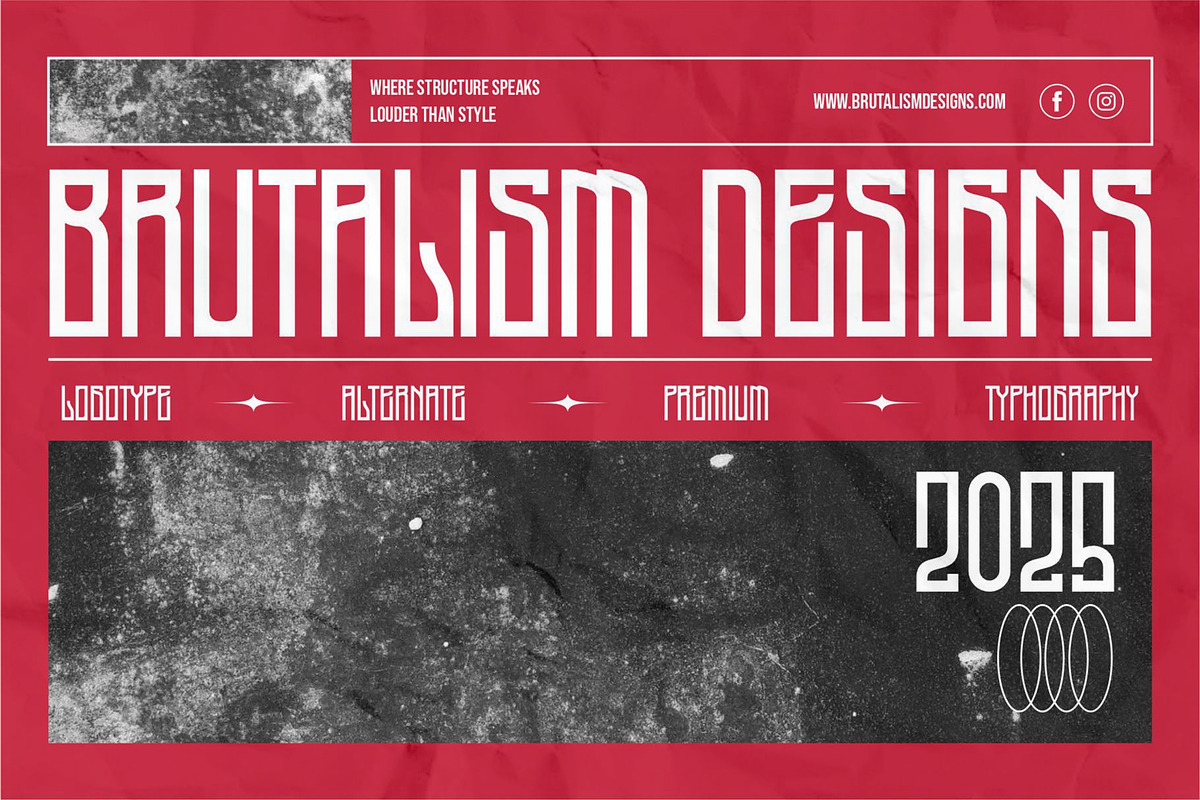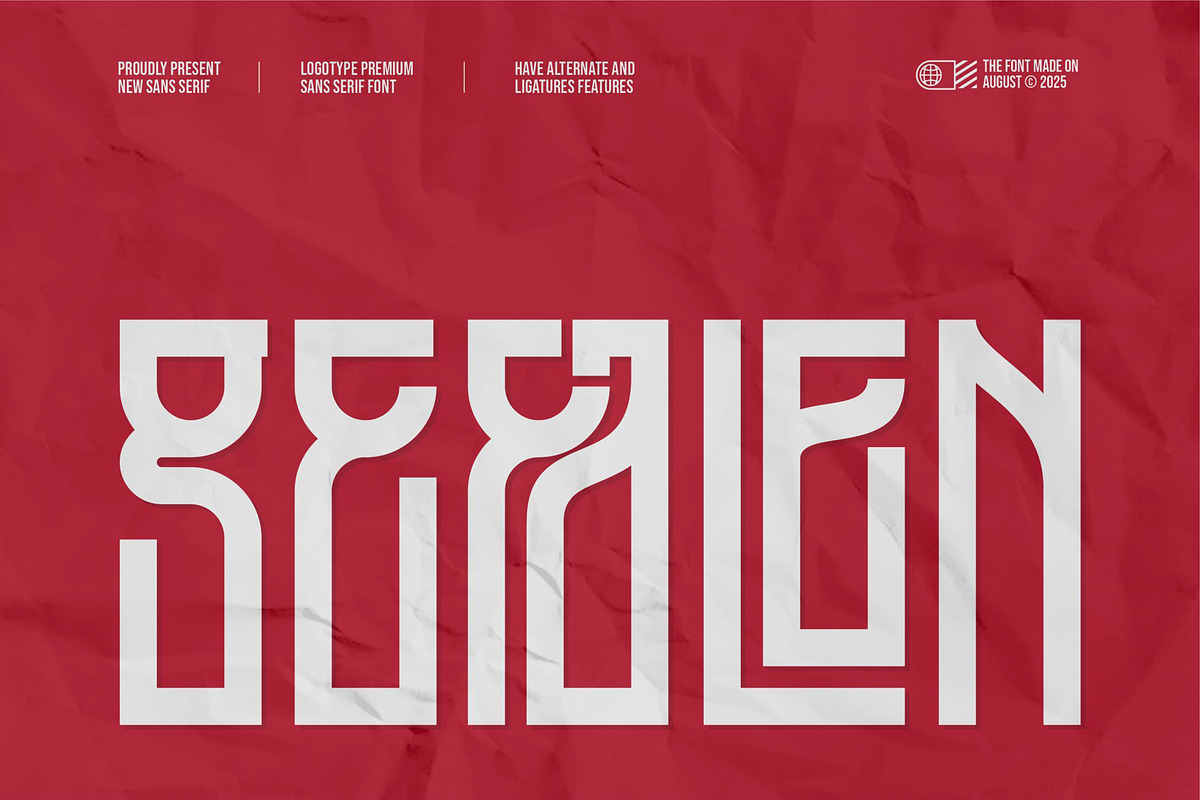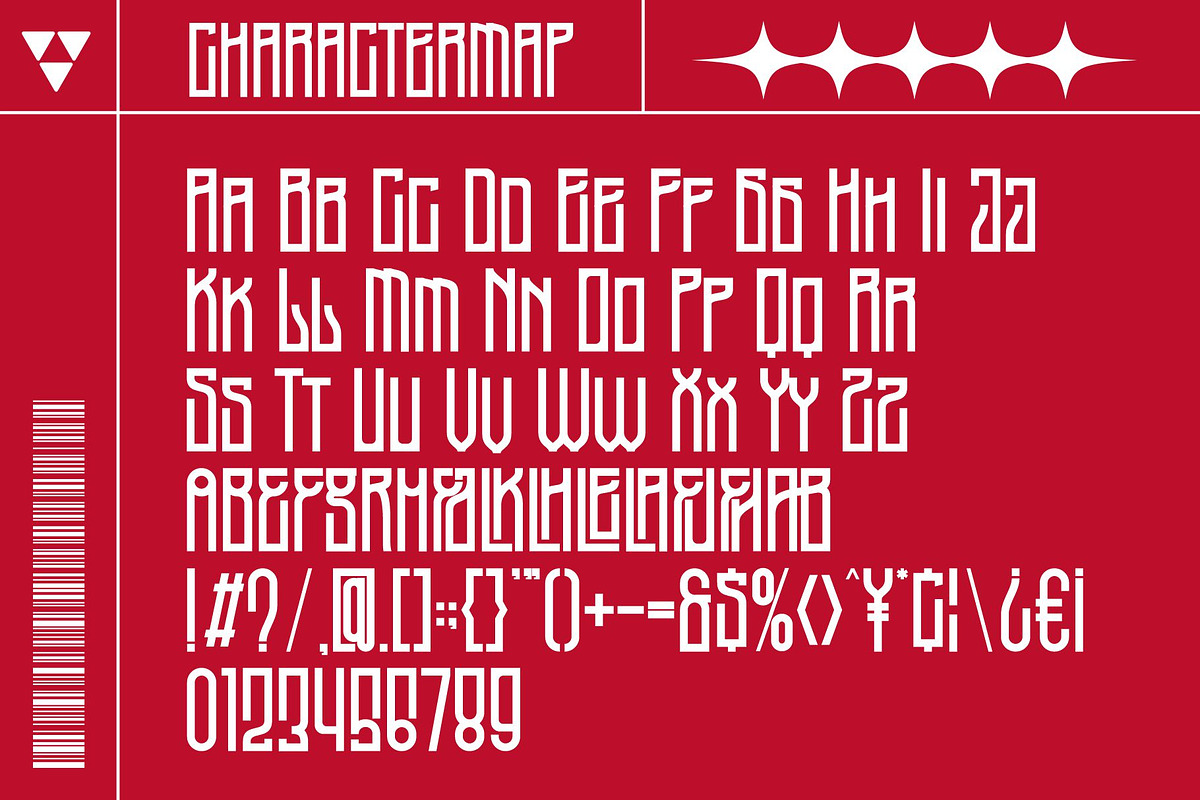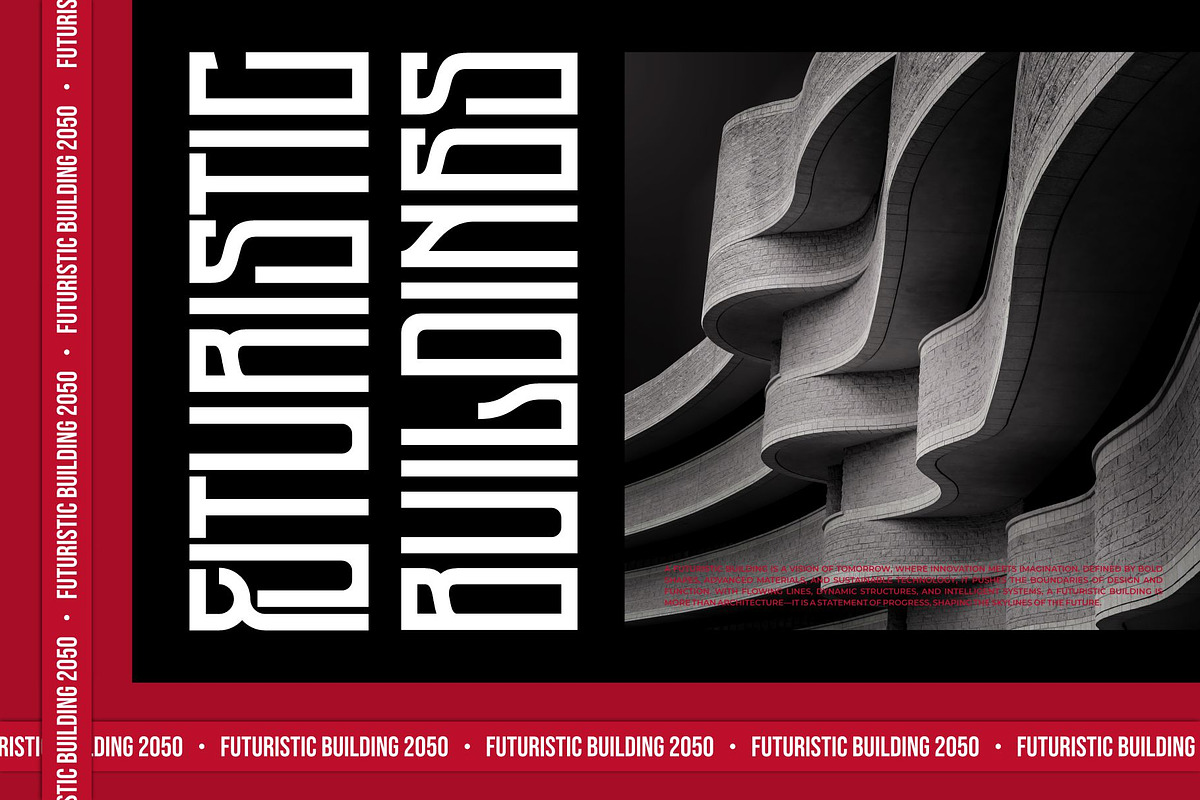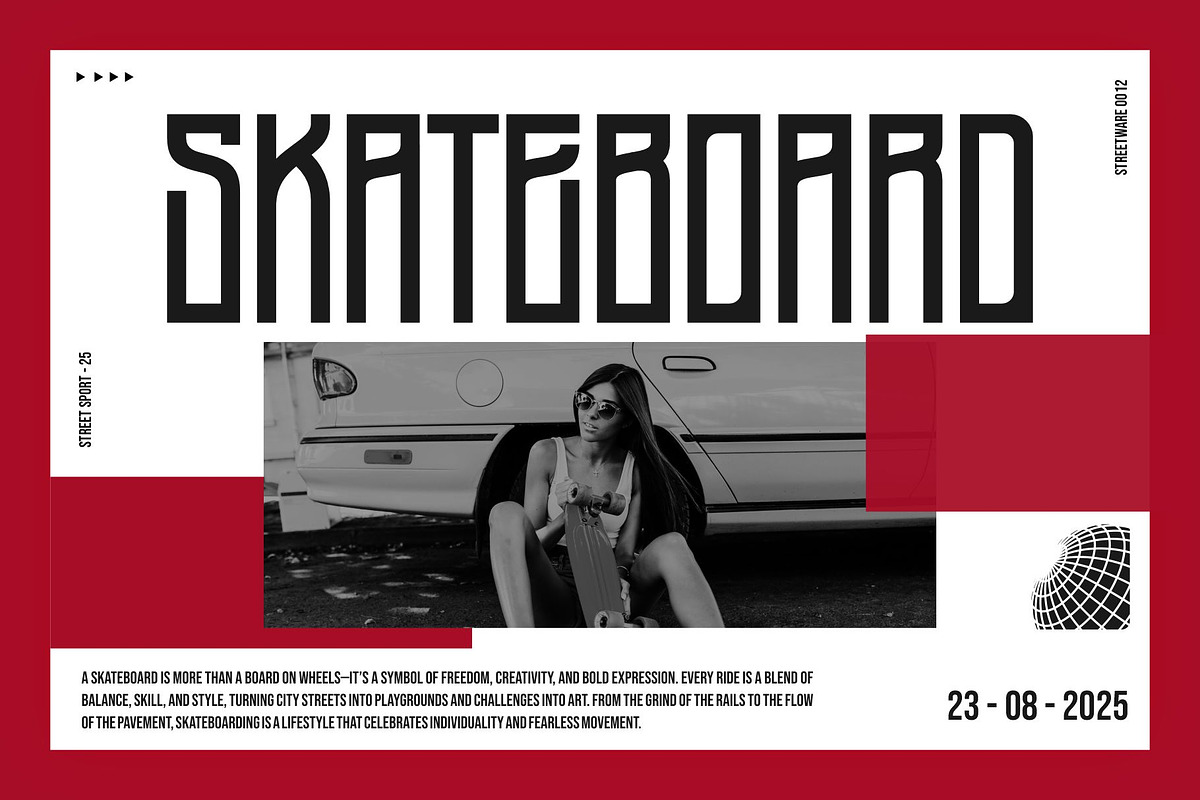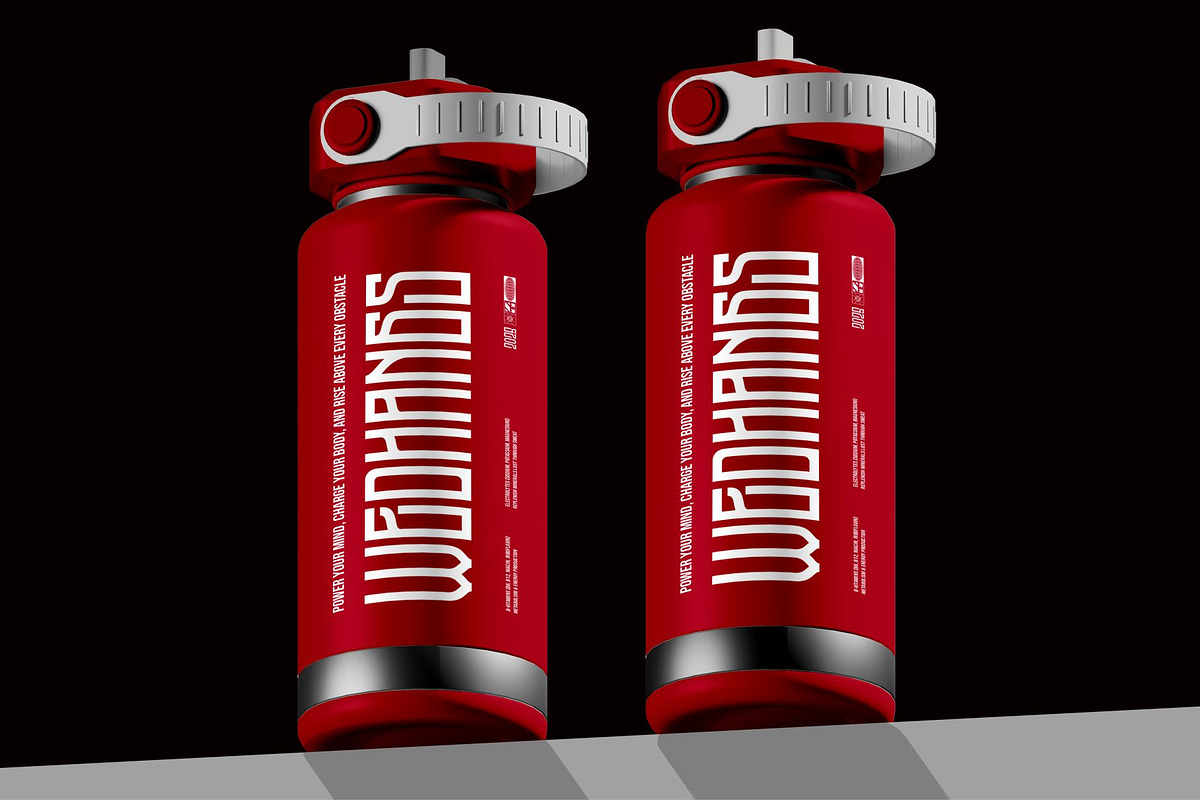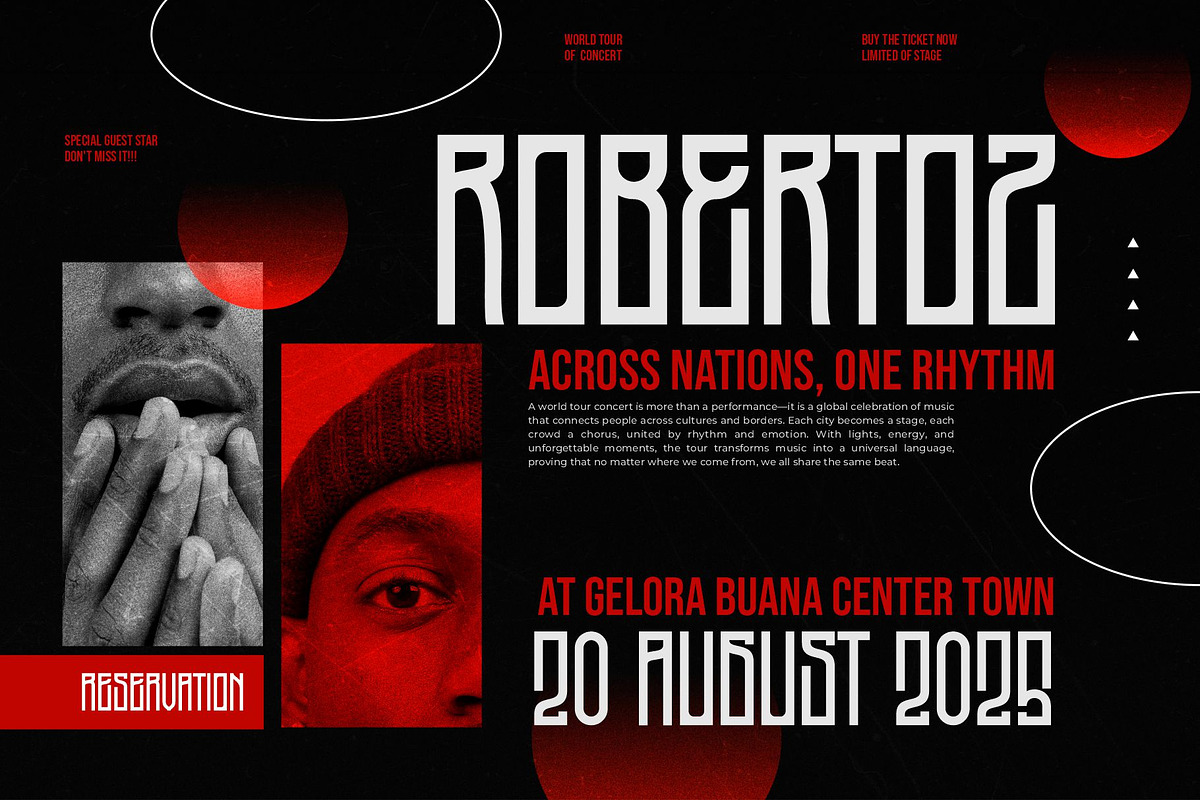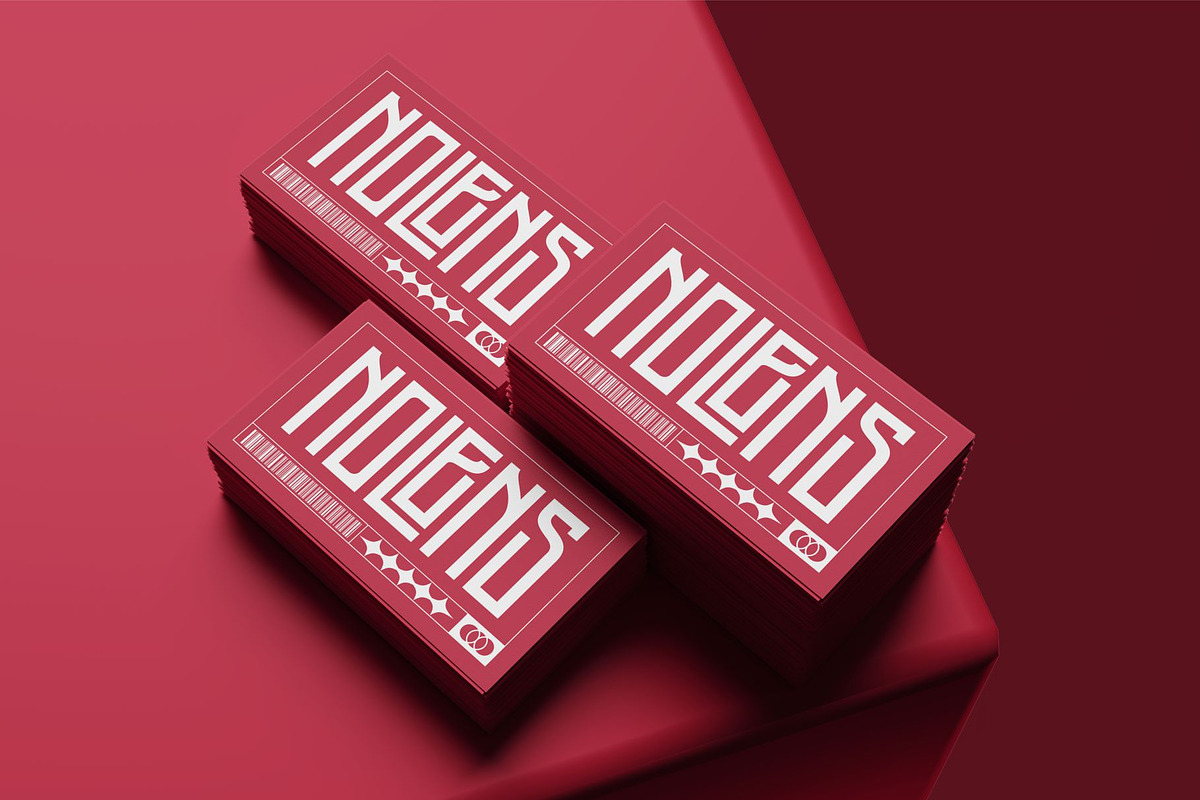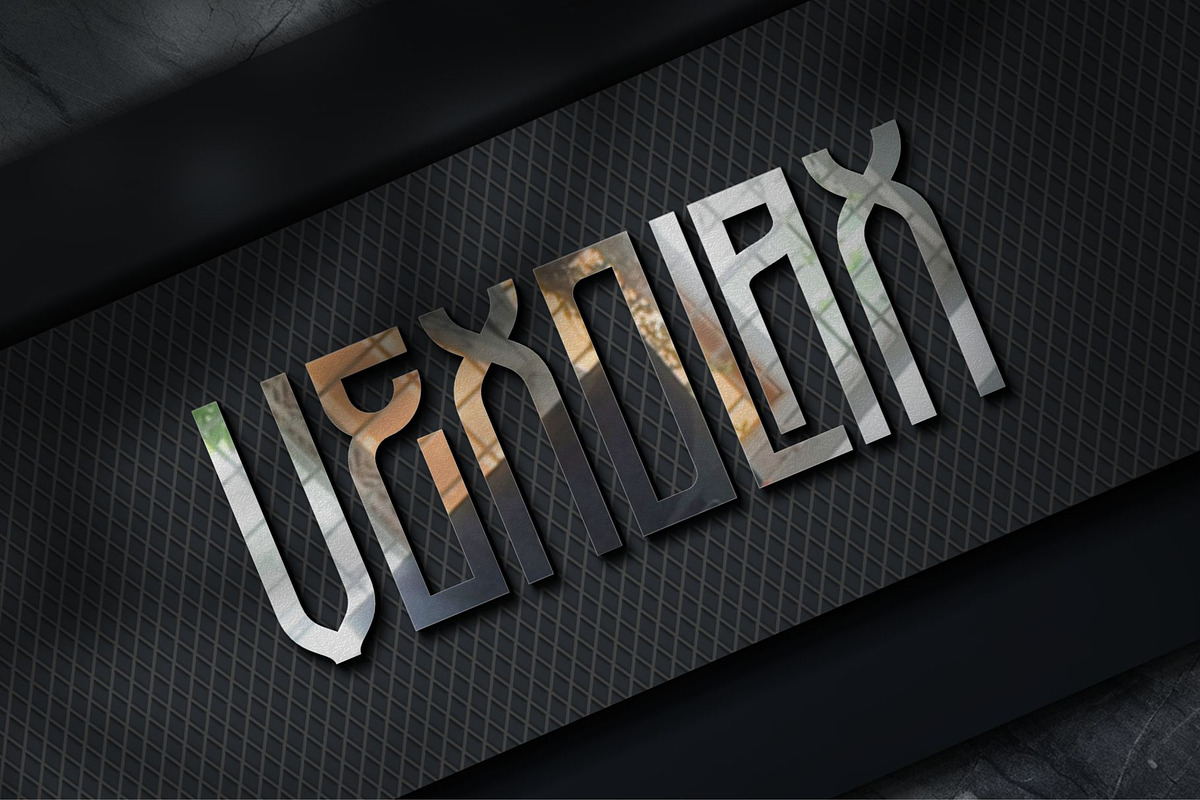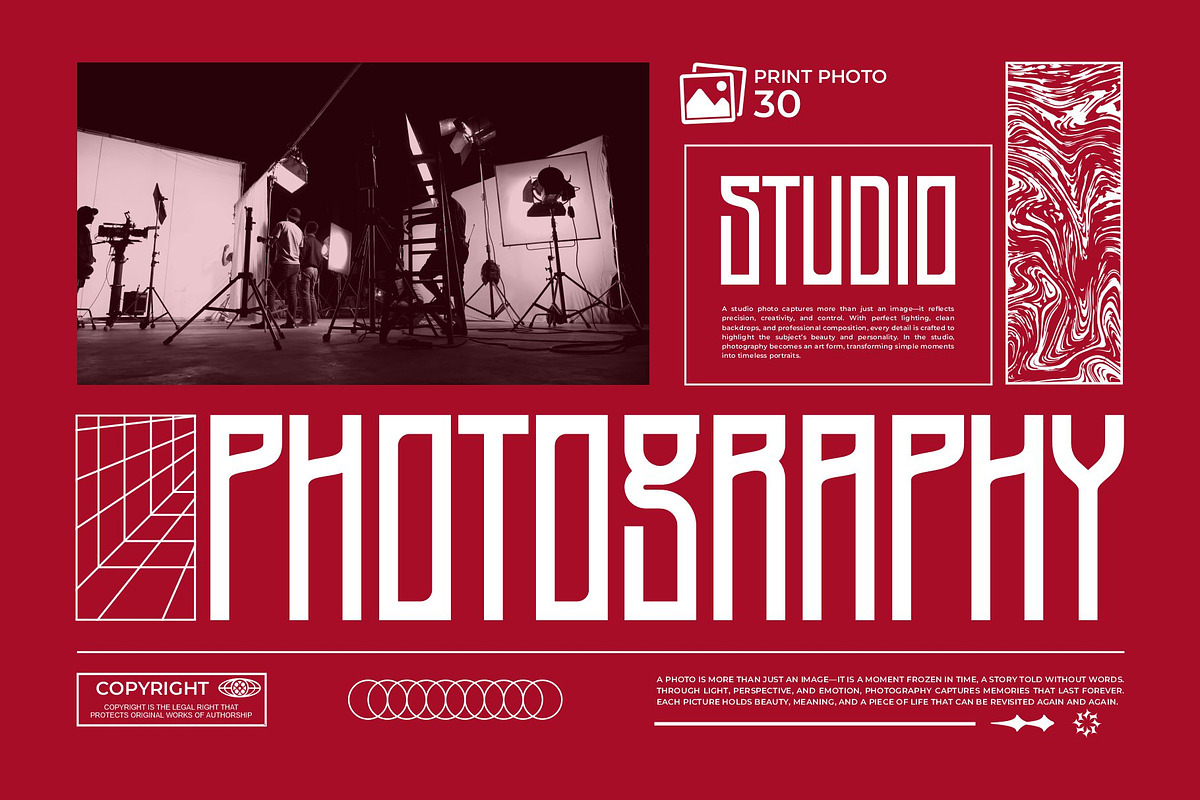
Gefalen || Modern Tall Condensed San
Introducing Gefalen is tall sans serif Font modern, trendy and stylish. It has a unique character. It is perfect to be combined with invitation card designs, company logos, movie titles, movie names, business cards, book titles, brand names and various other designs.